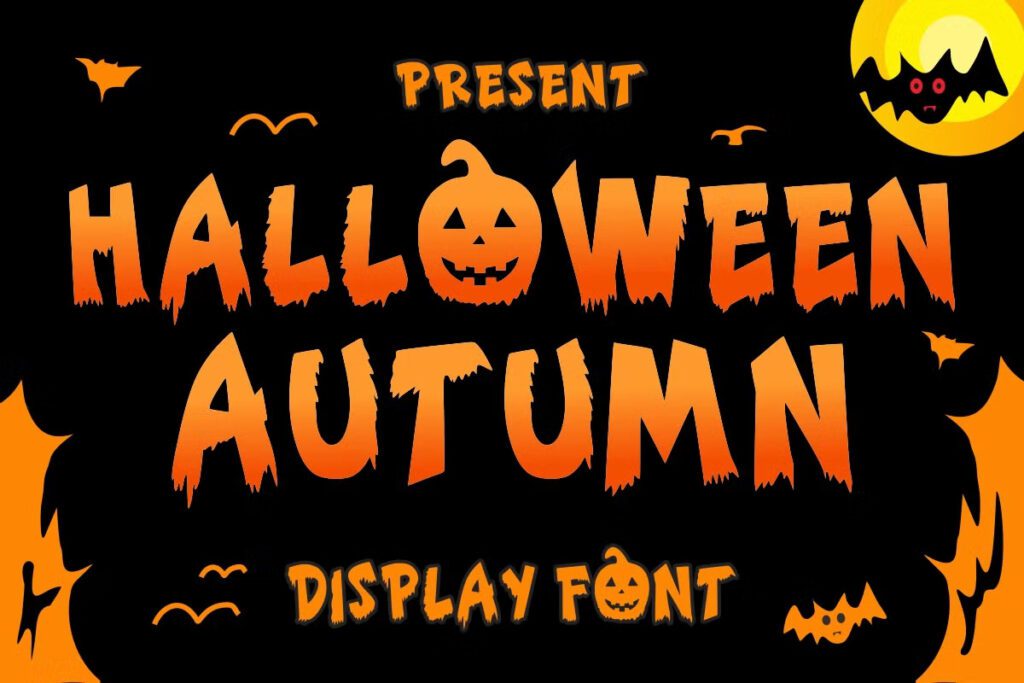
As the Halloween season approaches, it’s time to infuse your creative projects with a spooky, fun, and festive vibe. Whether you’re working on party invitations, branding, or decorations, the right font can make a significant difference. Enter Halloween Autumn, a perfect display font that captures the eerie yet playful essence of the season.
Why Halloween Autumn is Perfect for Your Projects
Halloween Autumn is not your average font. With its bold and spooky design, this display font adds an extra layer of Halloween magic to any project. Its versatility makes it ideal for:
Party Invitations: Set the perfect tone for your Halloween bash with a creepy-cool font that draws attention.
Branding & Logos: Perfect for brands looking to create a Halloween-themed logo or promotional material.
Greeting Cards & Photo Albums: Add a fun yet spooky vibe to your holiday cards, planner covers, and photo albums.
Blog Posts & Ads: This font is ideal for capturing the Halloween spirit in seasonal advertisements or themed blog posts.
Whether you’re designing for a haunted house event or simply want to get into the Halloween spirit, Halloween Autumn brings that special touch of spooky flair.
Versatile for Any Halloween-Themed Design
Halloween Autumn isn’t limited to traditional scary designs. It blends fun with fright, making it versatile enough for a wide range of projects. From decorating your social media graphics to creating custom planner stickers, this font ensures your work stands out with a unique, festive twist.
Perfect for Designers, Creators, and Party Planners
No matter your project’s scope, Halloween Autumn fits right in. Its bold, expressive design makes it easy to use and helps grab attention immediately. Whether you’re a graphic designer, blogger, or someone looking to add a spooky touch to personal creations, this font is a great choice for the Halloween season.